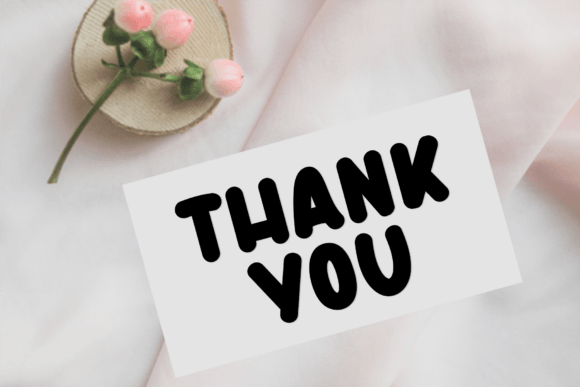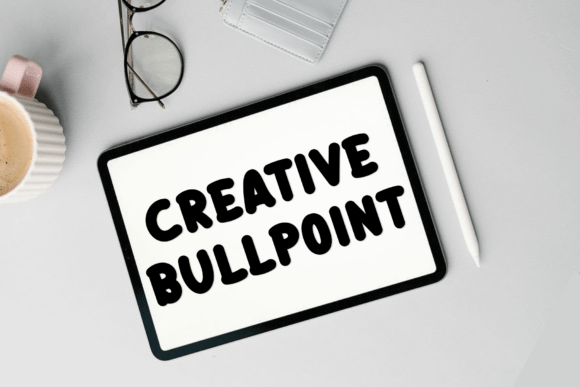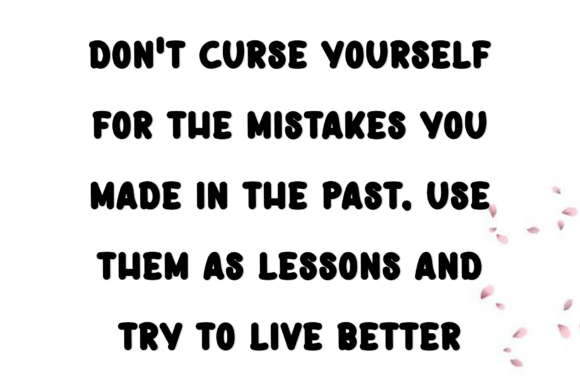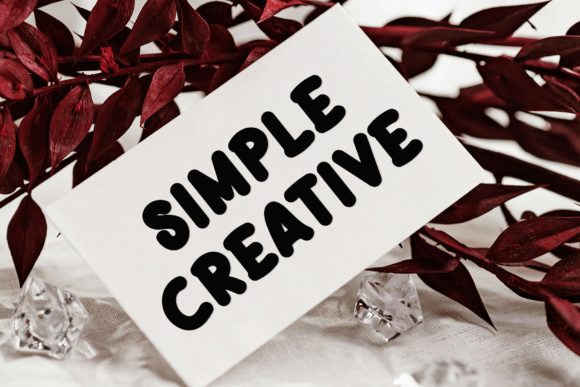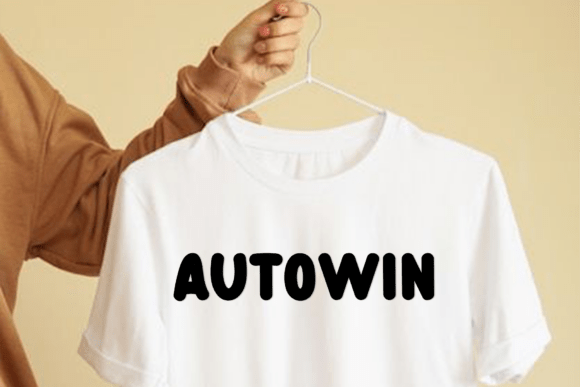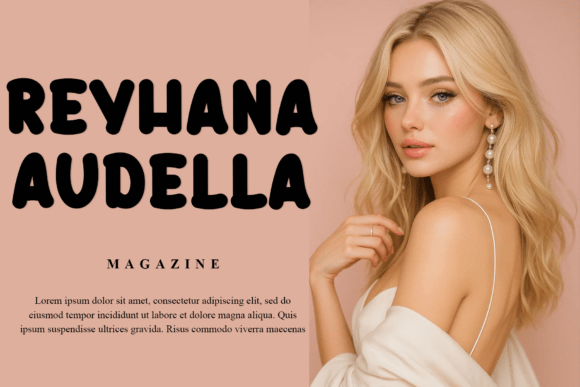
The Daily Pantry Font: A Deliciously Bold Staple for Home and Hearth
The Daily Pantry font is a heavy-duty, ultra-rounded display face that radiates a sense of comfort and reliability. Its thick, soft strokes remind one of fresh dough or artisanal packaging, making it the perfect choice for the food and beverage industry, kitchenware branding, or home organization products.
- ✨ **Ultra-rounded and soft**: The Daily Pantry font is a masterclass in friendly, approachable design. Its rounded edges and soft strokes make it feel approachable and welcoming.
- ✅ **High legibility**: Even at a distance, the Daily Pantry font remains clear and easy to read, making it perfect for packaging design, storefront signage, or “sale” banners.
- 💡 **Versatile**: This font pairs well with a variety of design styles, from rustic to modern, and can be used in a range of applications, from branding to advertising.
While the Daily Pantry font is an excellent choice for many design projects, there are a few things to keep in mind:
- ⚠️ **Limited use in body text**: Due to its bold and ultra-rounded nature, the Daily Pantry font may not be the best choice for body text. It’s best used as a display font or for headings.
- 🤔 **May not work well in small sizes**: While the font remains legible at a distance, it may not be the best choice for very small sizes or detailed designs.
The Story Behind Daily Pantry: Designer Inspiration
The Daily Pantry font was designed with the goal of creating a friendly, approachable display face that would evoke the warmth and comfort of homemade goods. Inspired by the soft, rounded edges of artisanal packaging and the gentle curves of fresh dough, the Daily Pantry font is perfect for designers looking to add a touch of personality to their projects.
Q: What is the Daily Pantry font best used for?
A: The Daily Pantry font is best used for display purposes, such as headings, titles, and packaging design. Its bold, ultra-rounded nature makes it perfect for grabbing attention and conveying a sense of comfort and reliability.
Q: Can I use the Daily Pantry font for body text?
A: While the Daily Pantry font can be used for body text, it’s not recommended. Its bold nature and rounded edges can make it difficult to read in large blocks of text.
Q: Is the Daily Pantry font suitable for digital use?
A: Yes, the Daily Pantry font is suitable for digital use. Its high legibility and clear lines make it perfect for use on websites, social media, and other digital platforms.